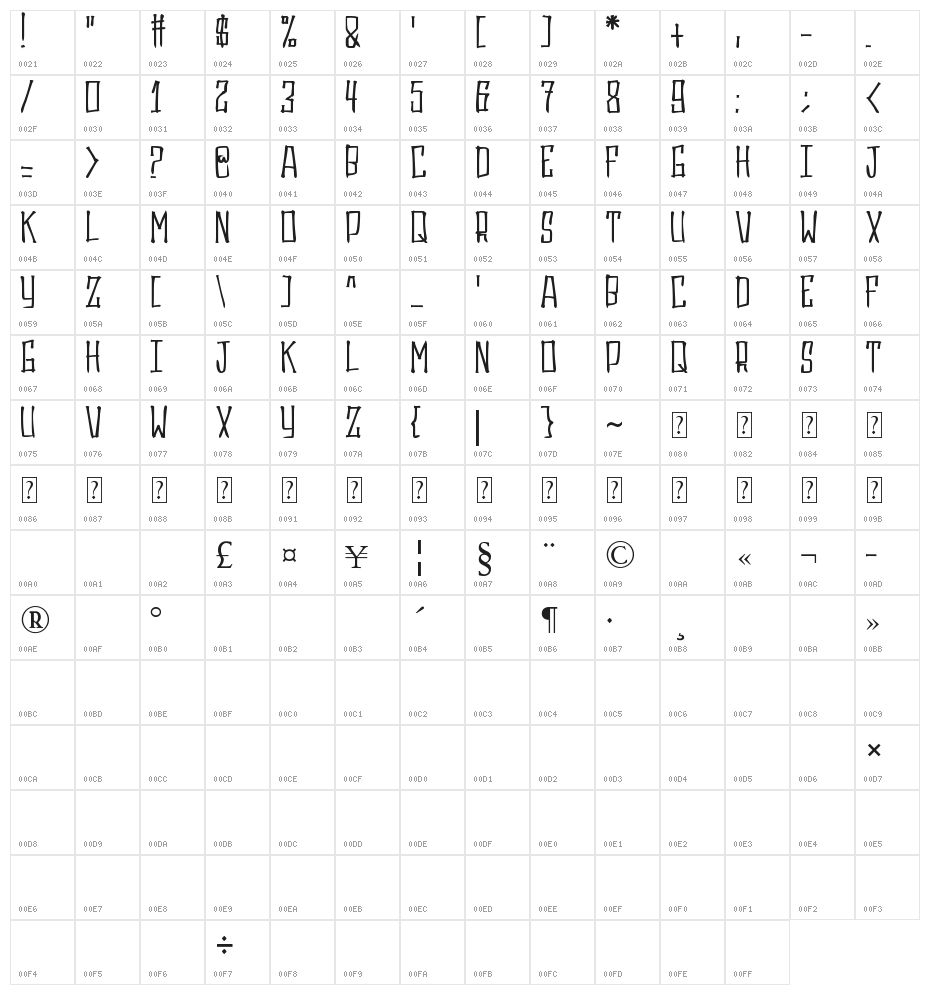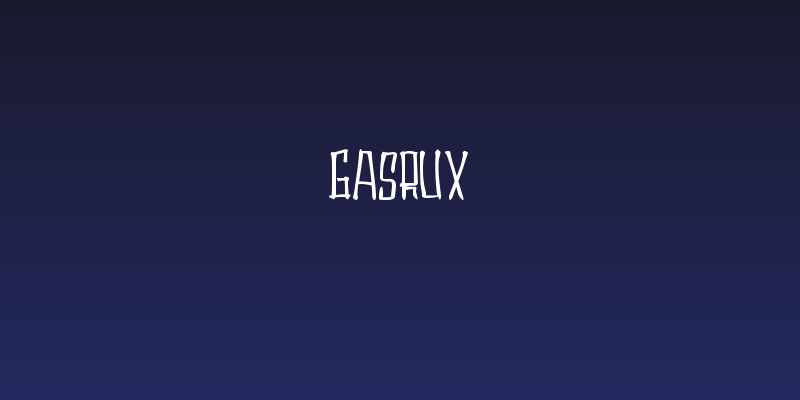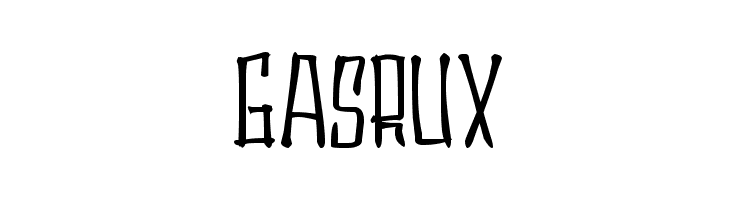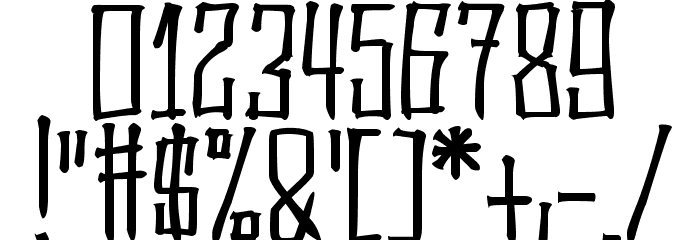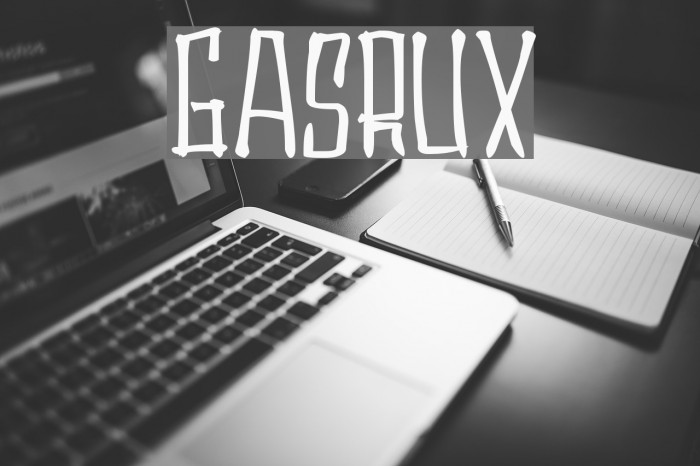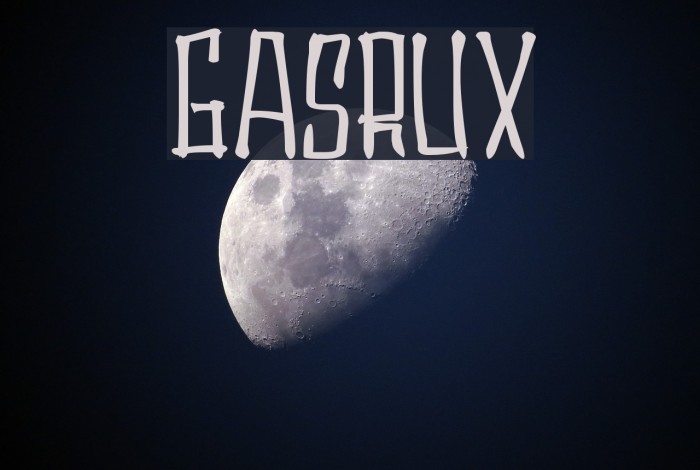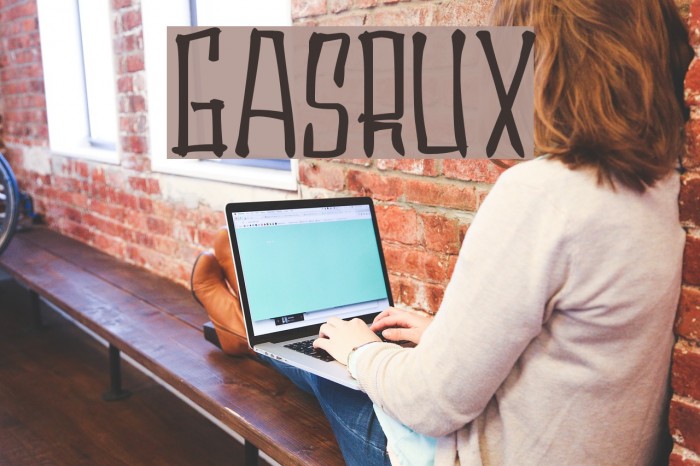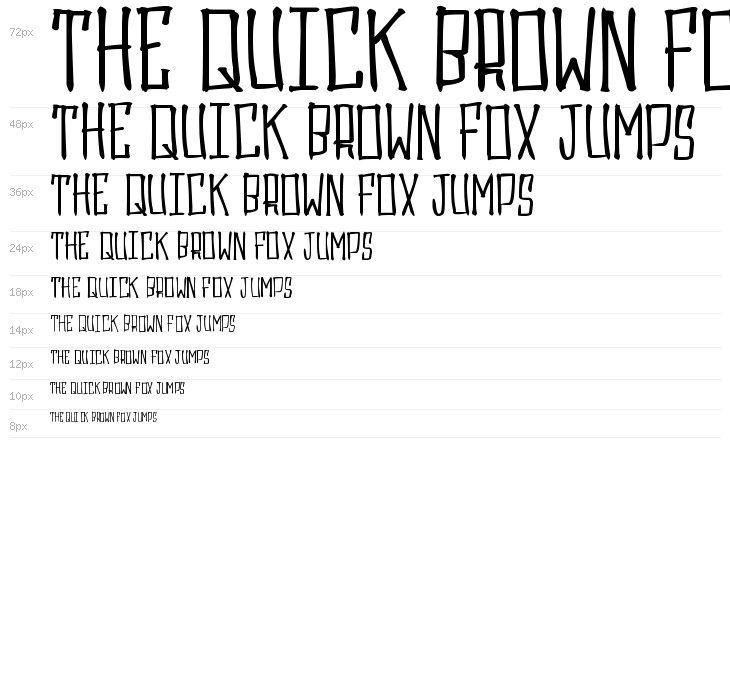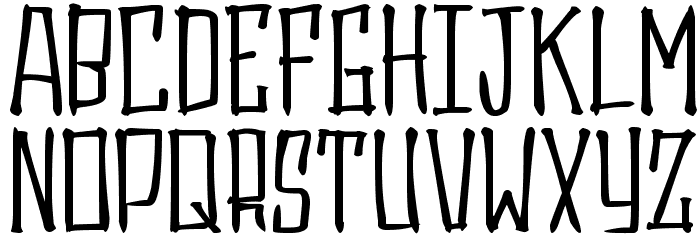
Gasrux Font
Gasrux Description
This font features a bold and expressive style with a hand-drawn appearance, characterized by its uneven strokes and playful, informal look. The uppercase and lowercase letters maintain a consistent height, giving it a cohesive feel despite the irregularities in line thickness. The numerals and special characters follow the same quirky design, making the font suitable for creative and artistic projects. Its unique style captures attention and adds a personal touch to any design.
GASRUX UPPERCASE
GASRUX LOWERCASE
GASRUX OTHER CHARS